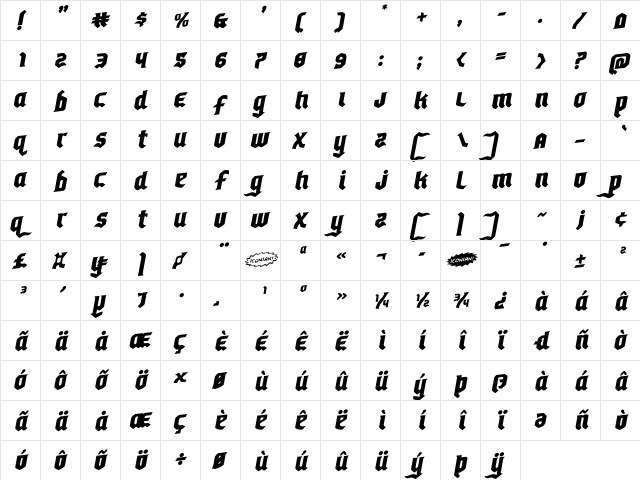
Empire Crown Rotalic Italic Font Preview
Empire Crown Rotalic Italic
Design Context for Empire Crown Rotalic Typeface
Empire Crown Rotalic is a composed and adaptable typeface that performs quietly and consistently across a wide range of design contexts. The dynamic lean of this cut emphasises speed and emphasis in any layout.
Pro Tip: Use Empire Crown Rotalic for emphasis, pull quotes, and subheadings where its slanted energy can add rhythm to the layout.